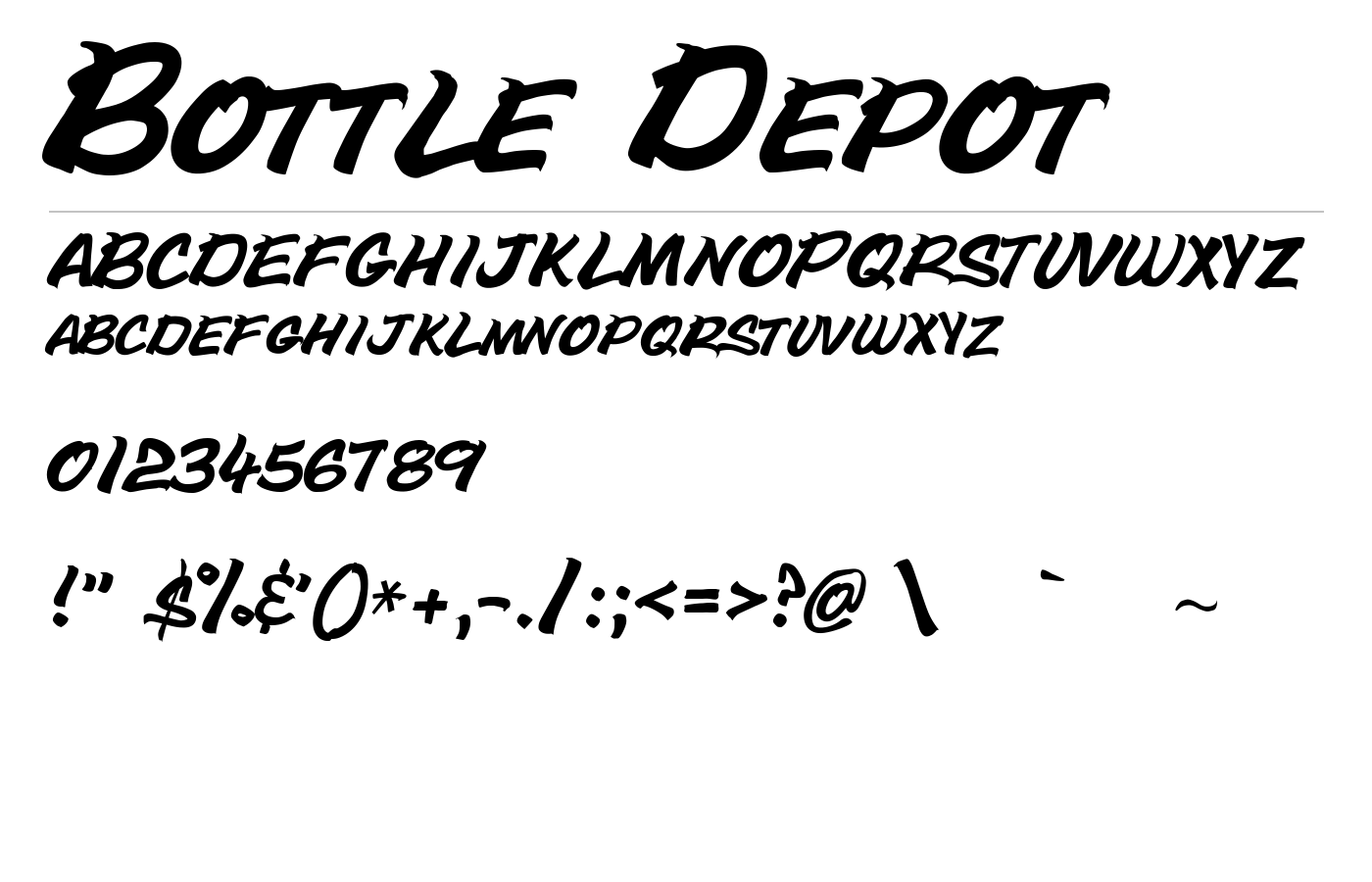
Bottle Depot is a bold, casual script font with strong brushstroke textures that give it an energetic and handmade feel. Its upright italic style and slightly condensed forms make it ideal for lively headlines, branding, and packaging that seek a playful, approachable personality. This font works well for creative projects looking to convey warmth and informal charm with a touch of artistic flair.
Bottle Depot Font
About Bottle Depot Font
| Font family | Bottle Depot Font |
| Designer | Michael Tension |